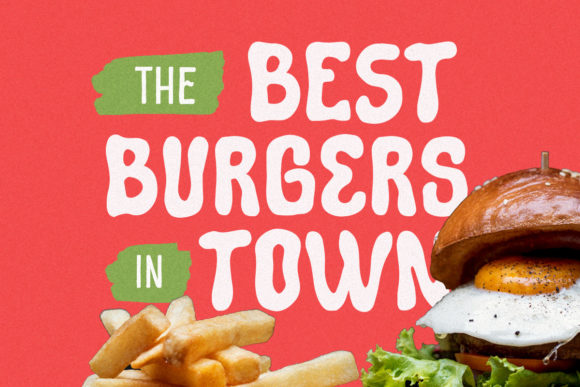
Introducing Flavory Font: The Ultimate Duo for Stunning Designs
Are you tired of using the same old fonts for your designs? Look no further! Flavory Font is here to revolutionize your creative projects with its unique, wavy, and vintage style. This duo font, consisting of a display and sans font, is perfect for creating eye-catching posters, flyers, and prints that will leave a lasting impression.
What is Flavory Font?
Flavory Font is a carefully crafted duo font that combines a display font with a sans font, offering endless possibilities for designers. The display font boasts a wavy, vintage look, while the sans font provides a clean and modern contrast. This versatile font duo is suitable for a wide range of design projects, from posters and flyers to logos, branding, and packaging.
Key Features of Flavory Font
- Wavy and Vintage Style: Flavory Font’s display font features a unique wavy style that adds a touch of nostalgia and sophistication to your designs.
- Duo Font: The font duo consists of a display font and a sans font, allowing you to mix and match styles to create visually appealing designs.
- High-Quality Design: Flavory Font is designed with precision and attention to detail, ensuring that your designs look professional and polished.
- Endless Possibilities: With Flavory Font, you can experiment with different combinations of the display and sans fonts to create unique and stunning designs.
Benefits of Using Flavory Font
So, why choose Flavory Font for your designs? Here are just a few benefits:
- Stand Out from the Crowd: With Flavory Font, you can create designs that are truly unique and eye-catching, setting you apart from the competition.
- Save Time and Effort: The font duo is designed to be versatile and easy to use, saving you time and effort in the design process.
- Enhance Your Brand: Flavory Font can help you establish a strong brand identity with its distinctive and memorable style.
- Perfect for Print Design: The font is optimized for print design, ensuring that your posters, flyers, and prints look stunning and professional.
Tips and Tricks for Getting the Most out of Flavory Font
Here are some tips and tricks to help you get the most out of Flavory Font:
- Mix and Match: Experiment with different combinations of the display and sans fonts to create unique and visually appealing designs.
- Play with Colors: Try out different color schemes to find the perfect match for your design.
- Use it for Headings and Titles: Flavory Font is perfect for headings and titles, adding a touch of elegance and sophistication to your designs.
- Don’t Forget about Kerning: Make sure to adjust the kerning to ensure that your text looks balanced and visually appealing.